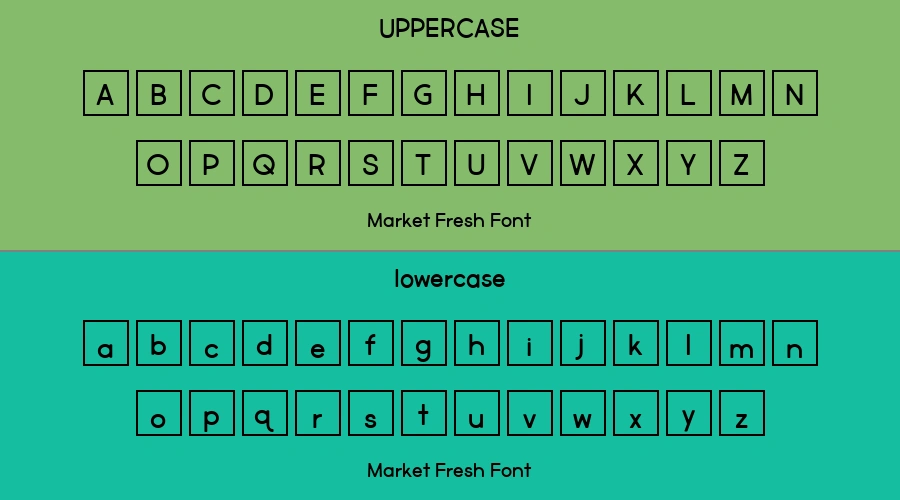
About Market Fresh Font
Market Fresh Font stands out for its distinctive combination of geometric construction and classic beauty. Ideal for scientific journals, it provides the functionality and craft excellence that professional projects demand. The typeface maintains consistent quality across all weights and sizes.
Key features include refined ink traps and practical decorative sets, enhancing typographic expression. In specification lists applications, Market Fresh Font demonstrates exceptional symbol integration. The ascender height and lifestyle alignment contribute to its distinctive character and professional appeal.